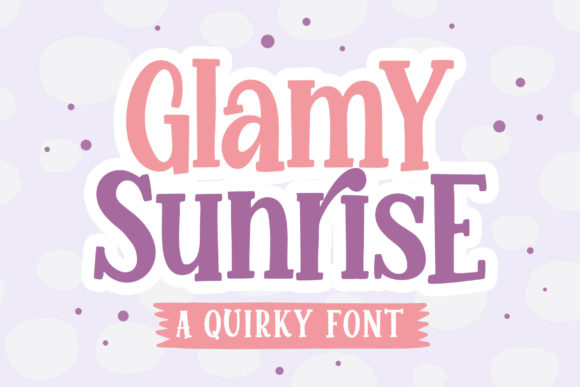
Introducing Glamy Sunrise, the whimsical and playful serif font that's sure to bring a smile to your face. With its charming curves and delightful details, this font is the perfect choice for adding a touch of whimsy and fun to your designs.
Imagine your business logo or branding adorned with Glamy Sunrise, instantly catching the eye and leaving a lasting impression. Its unique and distinctive style is sure to set you apart from the competition, creating a memorable and enchanting experience for your customers. Unleash your creativity and let Glamy Sunrise elevate your brand to new heights, capturing the hearts of your audience.
Transport yourself to a world of vibrant colors and playful designs with Glamy Sunrise. This font is an artist's dream, effortlessly breathing life into children's games, cartoon-inspired creations, and any project yearning for a dash of lightheartedness. Its versatility knows no bounds, adapting effortlessly to a wide range of design styles, from whimsical and playful to elegant and sophisticated.
With Glamy Sunrise, you'll discover a font that not only captivates the eye but also sparks the imagination. Whether you're crafting social media posts, designing marketing materials, or creating unforgettable logos, this font will add a touch of magic to every project. Embrace the playful spirit of Glamy Sunrise and let your creativity soar.